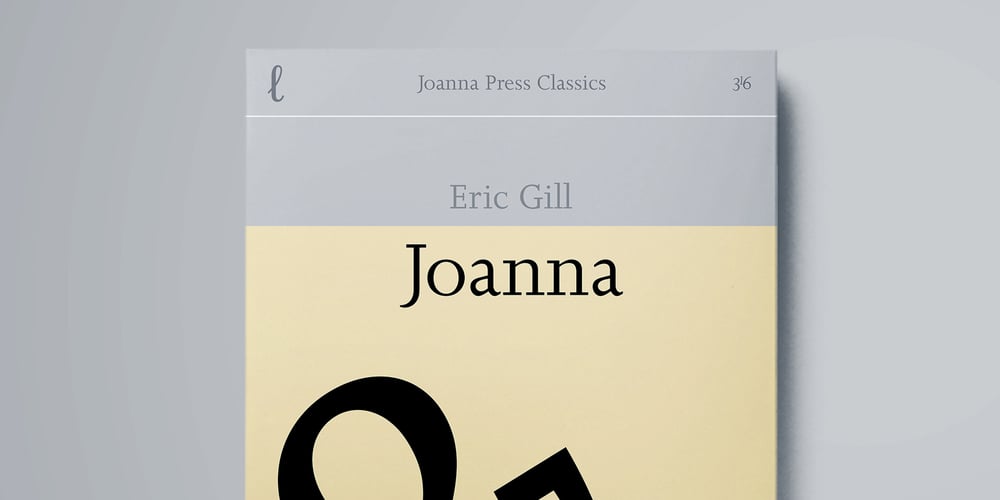
Joanna
Joanna font
Joanna Font Family was designed by Eric Gill and published by Monotype. Joanna contains 9 styles and family package options. The English stone carver, artist, and typographer Eric Gill conceived the Joanna typeface as a personal design for use in books printed at his Joanna Press.”” Gill saw his press work there as a continuation of the British Arts and Crafts Movement, pioneered in the 19th Century by William Morris. Joanna is notable for its almost vertical “”upright”” italics, and the unusally small size of its italic characters. Joanna is versatile and extremely legible. The letterforms are a bit narrow, so the face is very economic as well. A lot of text may be packed densely together onto a page with Joanna. Joanna mixes very well with other typefaces designed by Eric Gill; especially Gill Sans.